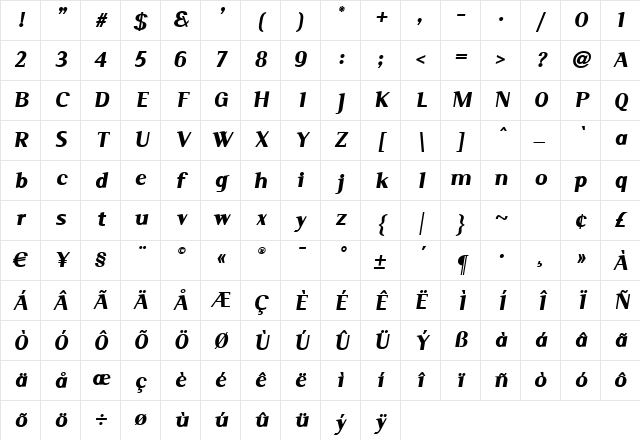
Serif BlackItalic
Style: BlackItalic
Serif Family
Serif BlackItalic
Design Context for Serif
Serif carries the refined structure of traditional serif typography, with bracketed terminals and considered proportions that communicate credibility and craft. The slanted form adds forward momentum and visual energy.